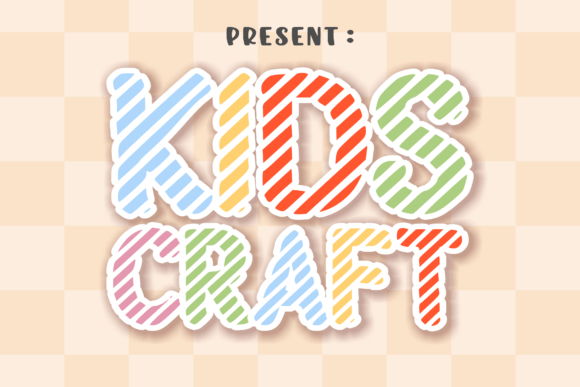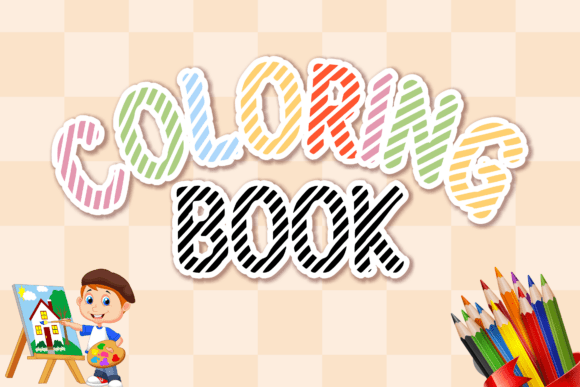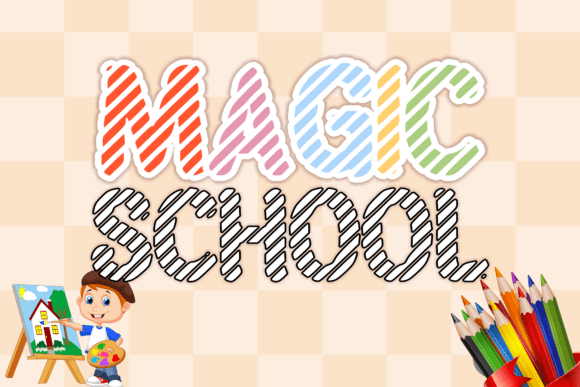
Kids Craft Font
About the Kids Craft Font
Experience the unique personality of Kids Craft Font, a font designed for impact. Kids Craft is a beautiful font that brings fun and imagination to your projects. With its striped style and look and many colors, this font offers hope for a variety of creative endeavors. Let this font add a pop of color and aesthetic elements to your designs, suitable for everything from posters, stickers, t-shirts, comics, books, movies, product labels, children’s designs, and more.
Kids Craft’s playful, hand-drawn aesthetic makes it ideal for children’s books, branding for toys or educational products, and playful posters. It also works well on packaging for fun, colorful products, and on apparel graphics. However, its informal nature makes it unsuitable for body text or applications requiring high readability, such as website UI or lengthy documents.
Pair Kids Craft with a clean sans-serif like Open Sans for contrast and readability in supporting text, or a classic serif like Garamond for a sophisticated yet approachable feel. For a more whimsical combination, consider pairing it with a playful script font.
The font’s core personality is undeniably cheerful and energetic, lending itself to brands targeting a young audience or those wishing to convey a sense of fun and creativity.
Kids Craft Font Usage Examples
Kids Craft Font Example